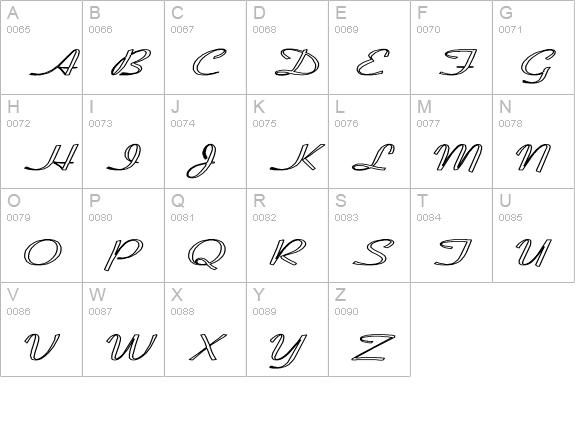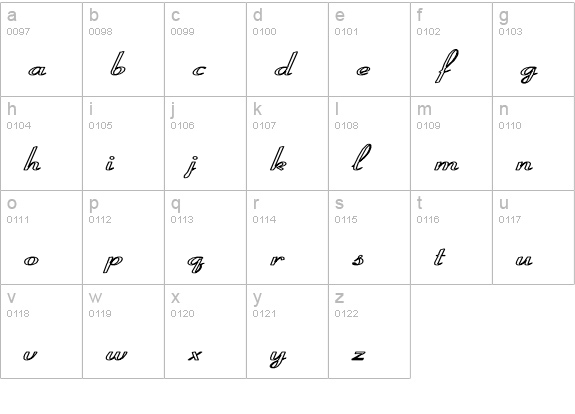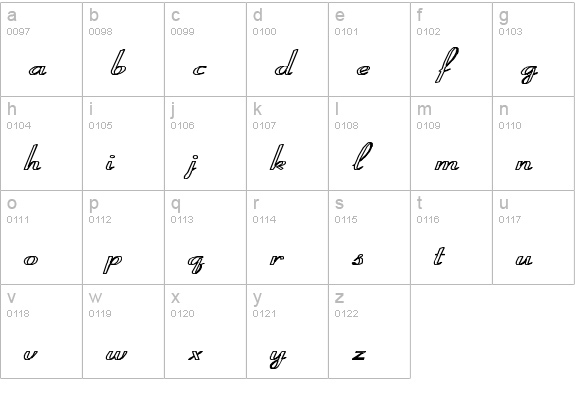
Coronet-SemiBold-Italic HE is a sub-bold, structured, italic variant in the Coronet typeface family \xE2\x80\x94 well suited to sub-headlines and emphasised passages.
Coronet-SemiBold-Italic HE is a striking and elegant font that exudes sophistication and style. The sleek and modern design of this typeface makes it perfect for a wide range of projects, from branding to editorial design. The semi-bold weight adds a touch of boldness and presence, while the italic style brings a sense of dynamism and flair. What sets Coronet-SemiBold-Italic HE apart is not just its aesthetic appeal, but also its versatility. Whether you're designing a logo, creating a poster, or crafting a magazine spread, this font will elevate your work to new heights. And the best part? Coronet-SemiBold-Italic HE is available for free download at FontsMarket.com. Now you can access this premium font without any cost, making it a valuable addition to your font library. Don't miss out on the opportunity to enhance your designs with the beauty and sophistication of Coronet-SemiBold-Italic HE.